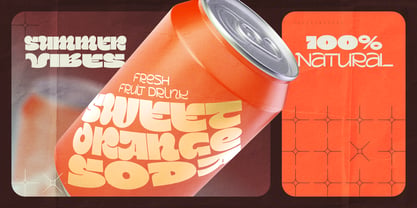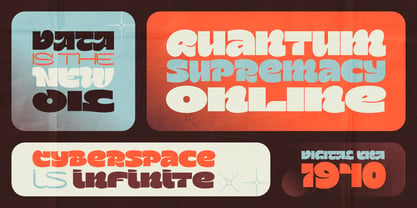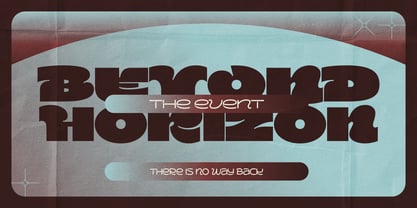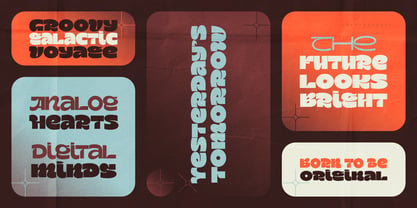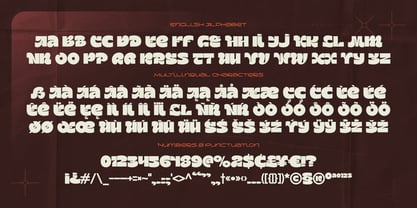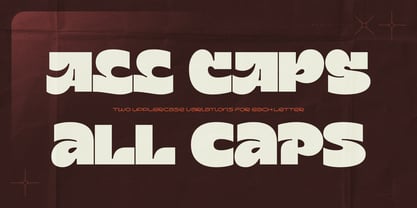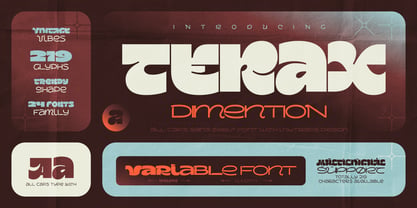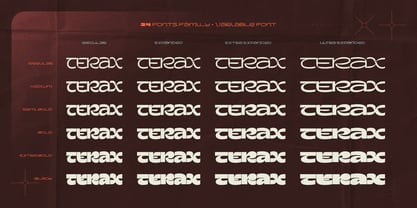
Terax Dimention
The Terax Dimention Font Family was designed by Gleb Guralnyk and published by Gleb Guralnyk. Terax Dimention contains 25 styles and family package options. More about this family
Introducing the Terax Dimention font family, which includes 24 typefaces and a variable font. It is a trendy, solid font featuring vintage vibes and unique ink trap shapes. Terax Dimention offers a wide range of styles, varying in width from Regular to Ultra Expanded and in weight from Regular to Black. The variable font is especially useful for creating tight-fitting lettering blocks, punchy ads & packaging design. Terax Dimention is an all-caps font, but each letter includes two options to bring more variety to your designs. This font offers multilingual support — check out the screenshots to see the full character set.